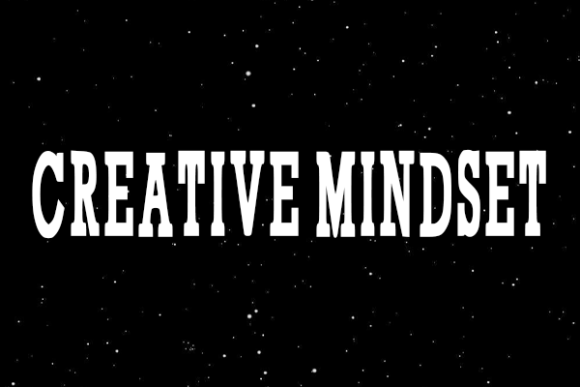
Unlock Your Creativity with the Elegant Serif Font: Creative Mindset
In the world of design, the right font can make all the difference. It can elevate your project from ordinary to extraordinary, convey the perfect tone, and capture the essence of your message. For designers, crafters, and digital artists, finding the perfect font is a constant quest. That’s where the Creative Mindset font comes in – an elegant serif font that embodies the perfect blend of sophistication and trendiness.
The Perfect Balance of Style and Versatility
Creative Mindset is more than just a font – it’s a design companion that can help you bring your creative visions to life. Its elegant serif lines exude a sense of refinement and luxury, making it perfect for projects that demand a touch of sophistication. Whether you’re crafting a beautiful greeting card, designing a stunning presentation, or creating digital art, this font is sure to impress.
Trendiness Meets Timelessness
What sets Creative Mindset apart is its unique blend of trendiness and timelessness. The font’s modern twists and subtle flair make it a great fit for contemporary designs, while its classic serif lines ensure it will remain relevant for years to come. This versatility makes it an excellent choice for designers and crafters who want to create projects that are both stylish and enduring.
The Creative Mindset font is incredibly versatile, making it suitable for a wide range of applications. Here are just a few ideas to get you started:
- Crafting: Use Creative Mindset to add a touch of elegance to your handmade crafts, such as journals, planners, and gift tags.
- Digital Designing: Create stunning social media graphics, blog posts, and website headers with this beautiful font.
- Presentations: Make your presentations stand out with Creative Mindset’s sophisticated and professional look.
- Greeting Cards: Design beautiful and heartfelt greeting cards for special occasions, such as weddings, birthdays, and holidays.
Why Choose Creative Mindset?
With so many fonts to choose from, why should you choose Creative Mindset? Here are just a few reasons:
- Unique Style: Creative Mindset offers a unique blend of elegance and trendiness that’s hard to find in other fonts.
- High-Quality Design: The font is meticulously designed to ensure crisp and clear lines, making it perfect for both digital and print applications.
- Easy to Read: The serif lines and carefully crafted letterforms make Creative Mindset easy to read, even at small sizes.
Tips for Using Creative Mindset
To get the most out of Creative Mindset, here are a few tips:
- Experiment with Sizes: Play around with different font sizes to find the perfect balance for your project.
- Pair it with Other Fonts: Combine Creative Mindset with other fonts to create a unique and visually appealing design.
- Use it for Headings and Titles: Take advantage of the font’s elegant lines and use it for headings and titles to add a touch of sophistication.
In conclusion, the Creative Mindset font is a versatile and elegant serif font that’s perfect for designers, crafters, and digital artists. Its unique blend of trendiness and timelessness makes it suitable for a wide range of applications, from crafting and digital designing to presentations and greeting cards. With its high-quality design, easy readability, and endless possibilities, Creative Mindset is sure to become your go-to font for all your creative projects.